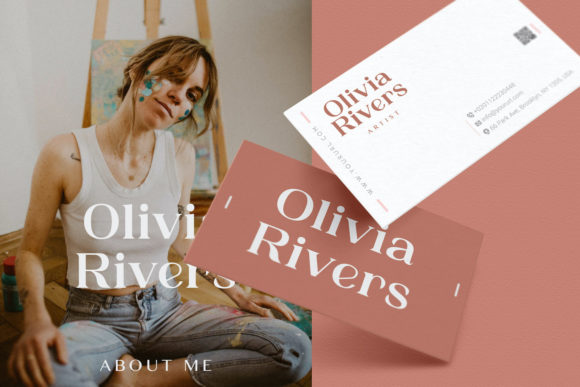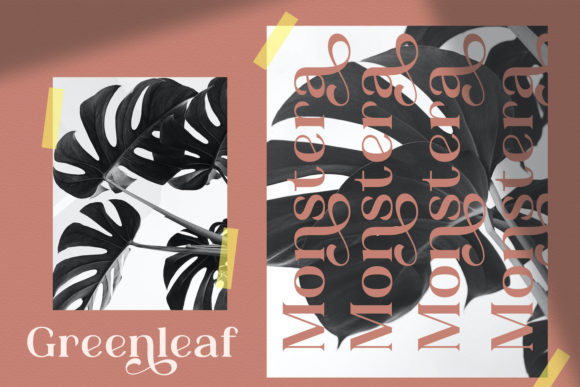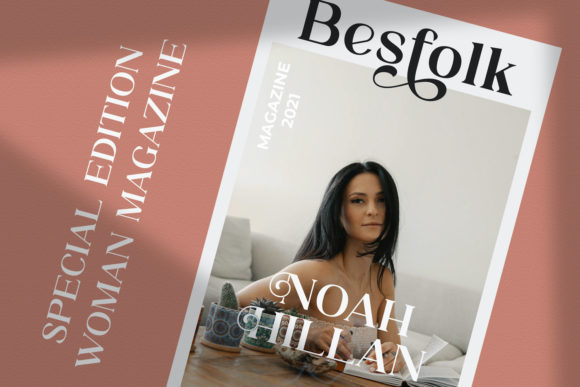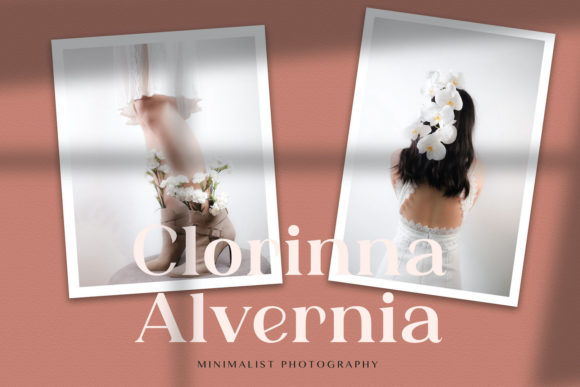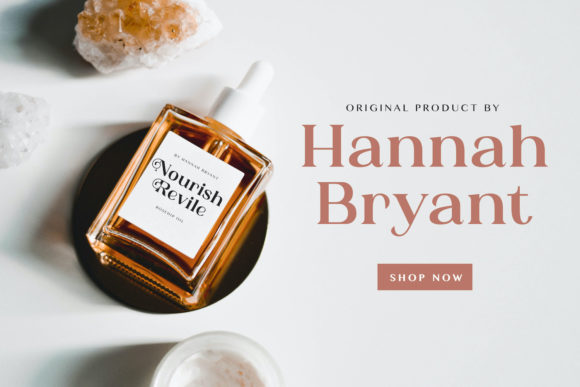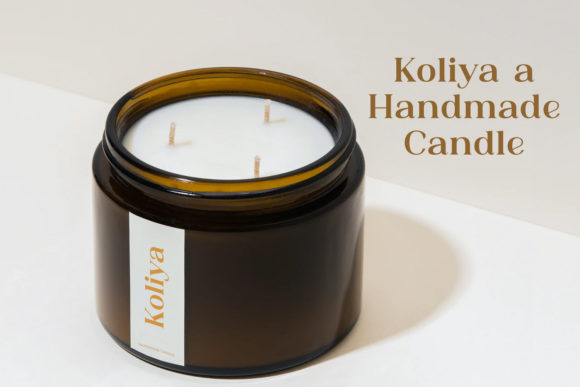
Introducing Adibafih Font: The Ultimate Serif Font for Elegant Designs
Are you a designer or crafter looking for a font that exudes elegance and sophistication? Look no further than Adibafih Font, a bold and elegant serif font that is perfect for a wide range of design projects. In this article, we’ll take a closer look at the features and benefits of Adibafih Font, and explore how it can elevate your designs to the next level.
What is Adibafih Font?
Adibafih Font is a beautifully crafted serif font that is designed to add a touch of elegance and sophistication to any design project. With its bold and refined lines, Adibafih Font is perfect for creating stunning logos, wedding invitations, headings, t-shirts, letterhead, signage, labels, news, posters, badges, and so much more.
Key Features of Adibafih Font
So, what makes Adibafih Font so special? Here are just a few of its key features:
- Bold and Elegant Design: Adibafih Font features a bold and elegant design that is perfect for creating sophisticated and eye-catching designs.
- PUA Encoded: Adibafih Font is PUA (Private Use Area) encoded, which means that you can access all of the glyphs and swashes with ease.
- Versatile: Adibafih Font is incredibly versatile and can be used for a wide range of design projects, from logos and wedding invitations to headings and signage.
Benefits of Using Adibafih Font
So, why should you choose Adibafih Font for your design projects? Here are just a few of the benefits of using this amazing font:
- Elegance and Sophistication: Adibafih Font adds a touch of elegance and sophistication to any design project, making it perfect for high-end brands and luxury products.
- Easy to Use: Adibafih Font is incredibly easy to use, even for designers who are new to font design. The PUA encoding makes it easy to access all of the glyphs and swashes.
- Time-Saving: With Adibafih Font, you can create stunning designs in no time. The font is designed to be used for a wide range of projects, saving you time and effort.
Design Ideas Using Adibafih Font
Adibafih Font is incredibly versatile, and can be used for a wide range of design projects. Here are just a few ideas to get you started:
- Logos: Create a stunning logo for your business or brand using Adibafih Font.
- Wedding Invitations: Design beautiful wedding invitations that exude elegance and sophistication.
- Headings: Use Adibafih Font to create stunning headings for your website, blog, or social media channels.
- T-Shirts: Design custom t-shirts using Adibafih Font, perfect for businesses, events, or personal use.
In conclusion, Adibafih Font is an amazing serif font that is perfect for designers and crafters looking to add a touch of elegance and sophistication to their designs. With its bold and refined lines, PUA encoding, and versatility, Adibafih Font is the ultimate font for a wide range of design projects. Whether you’re creating logos, wedding invitations, headings, or t-shirts, Adibafih Font is the perfect choice.